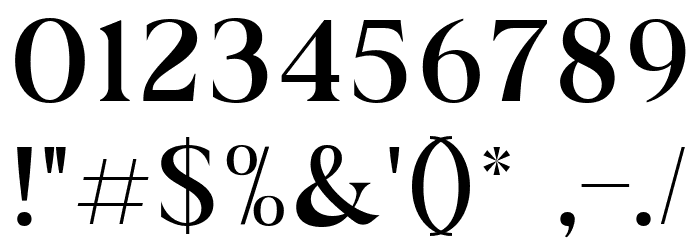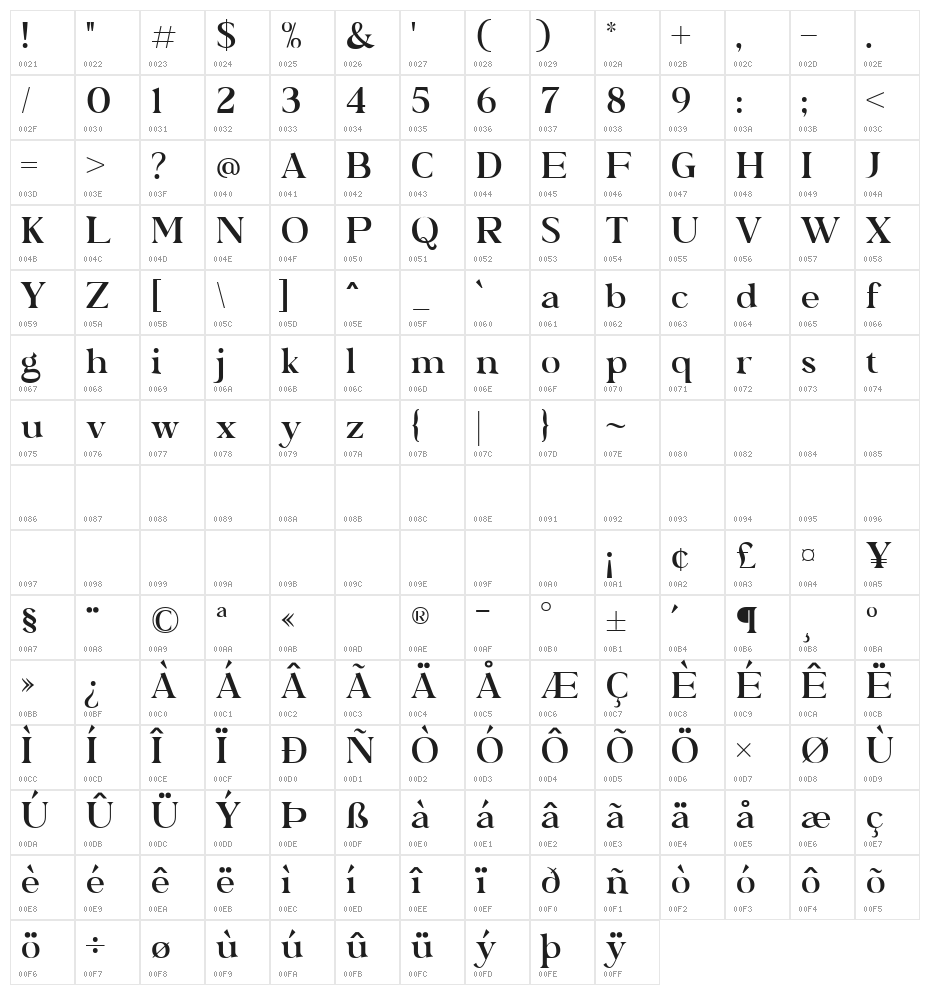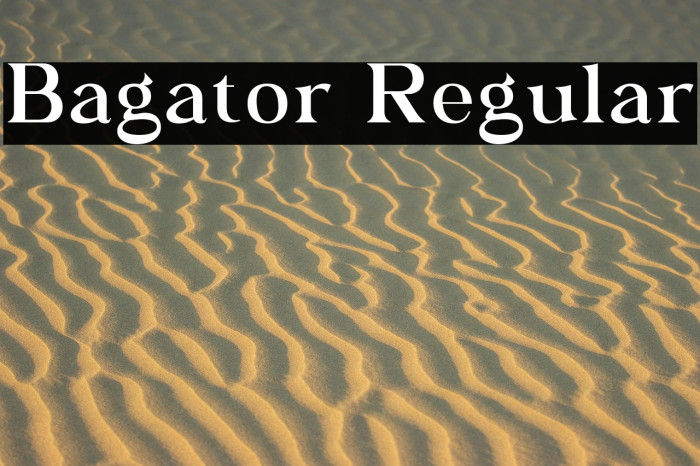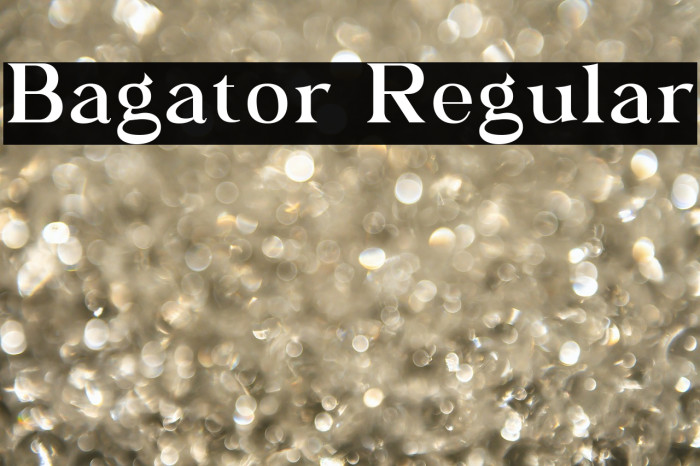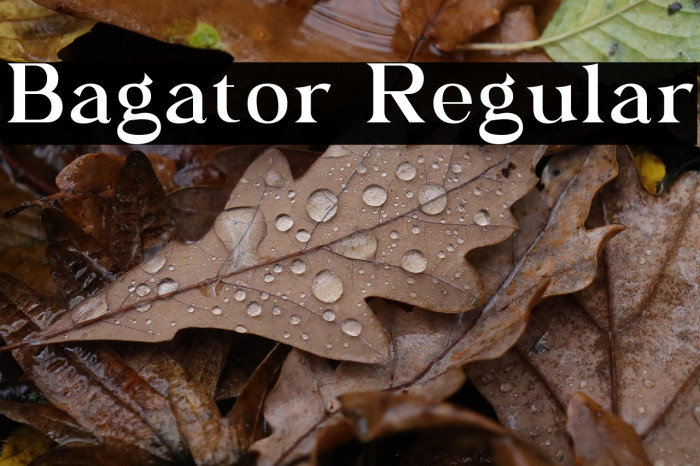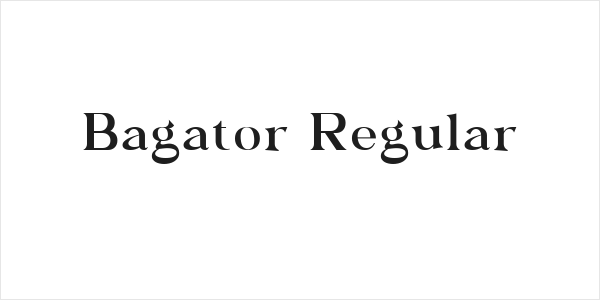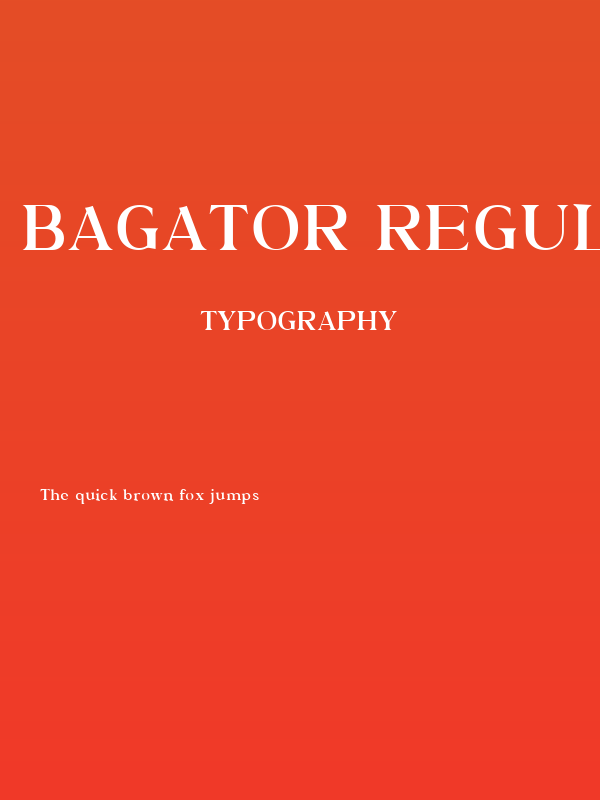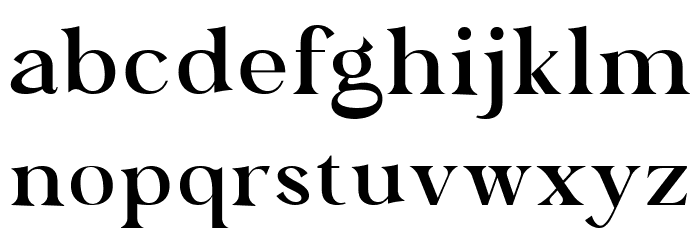
Bagator Regular Font
Bagator Regular Description
This font exhibits a classic serif style with elegant and refined strokes. The uppercase letters are bold and commanding, while the lowercase letters maintain a consistent and harmonious flow. The numerals are distinct and well-proportioned, ensuring clarity and readability. Special characters are crafted with precision, adding to the font's versatility. The overall design is sophisticated, making it suitable for formal and professional applications. The contrast between thick and thin strokes is moderate, providing a balanced appearance that is neither too stark nor too subtle.
Overall StyleClassic
Use CaseHeadlines, Body text, Logos
Proposed ProjectsIdeal for editorial design, book covers, formal invitations, and branding materials.